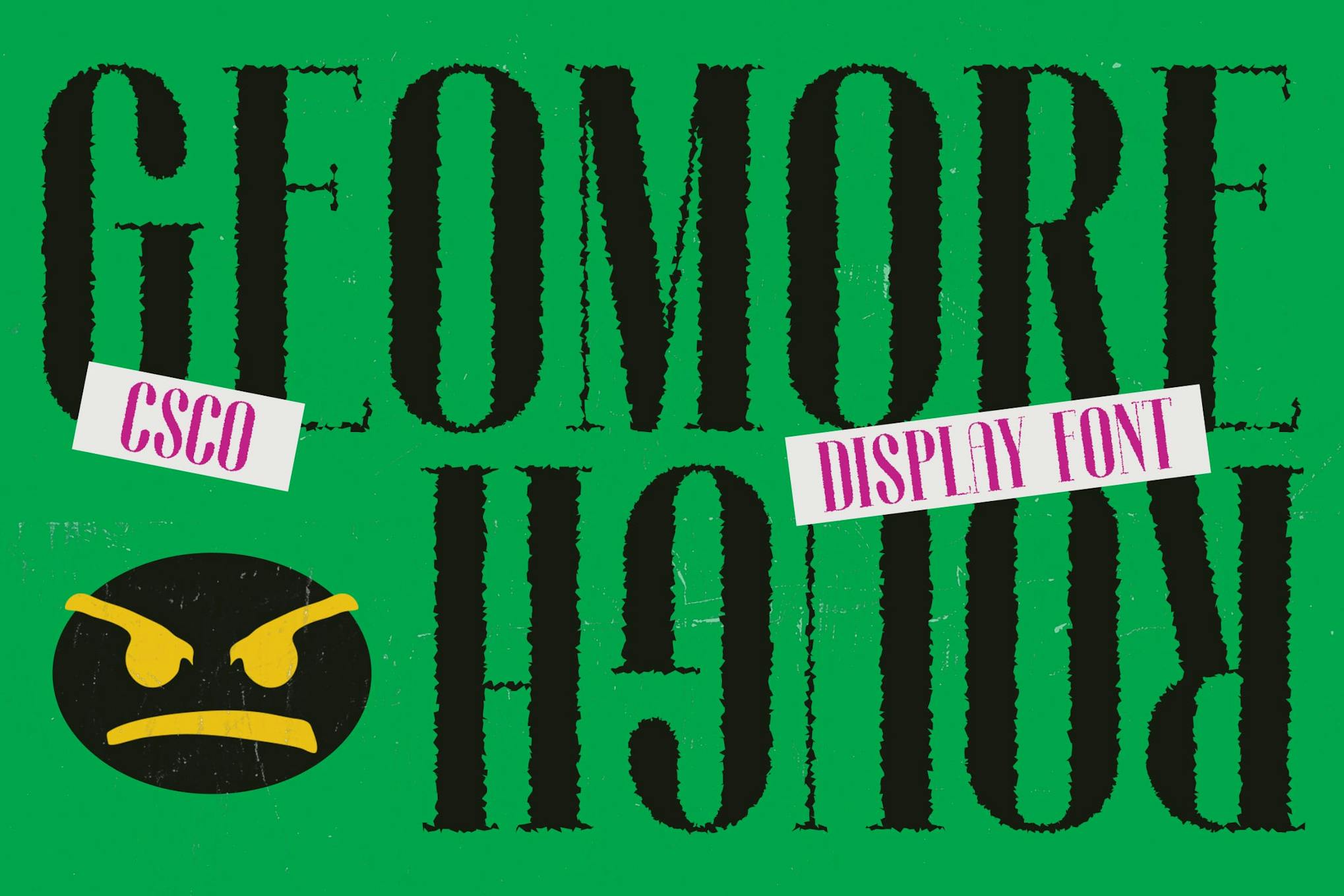
Geomore Rough Font
Perfect for posters, branding, packaging, social media graphics, and apparel design.
The Geomore Rough Font excites designers with its bold, textured appearance that adds a handcrafted, rugged feel to any creative project.
The Geomore Rough Font Free Download is a striking typeface designed to bring raw energy and authenticity to your designs. Its rough, distressed edges give your typography a tactile, vintage vibe, perfect for projects that need to stand out with personality. Whether you’re working on branding, posters, or packaging, Geomore Rough commands attention with its bold character.
One of the key strengths of Geomore Rough Font is its balance between gritty texture and clear readability. Despite its rugged design, it remains impactful and easy to read in headlines and display text, ensuring your message is delivered effectively.
In branding, Geomore Rough conveys strength, authenticity, and creativity. It pairs well with earthy colors, textured backgrounds, and bold visuals, helping brands build a memorable and grounded identity.
For digital projects, this font enhances website headers, social media posts, and promotional materials with its textured, vintage style. Its distinctive look makes your digital content stand out with bold personality.